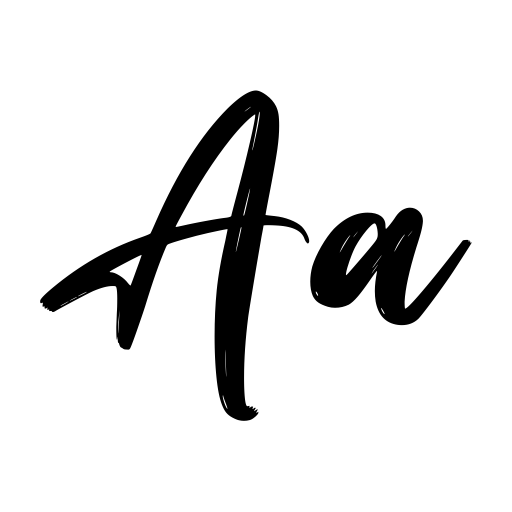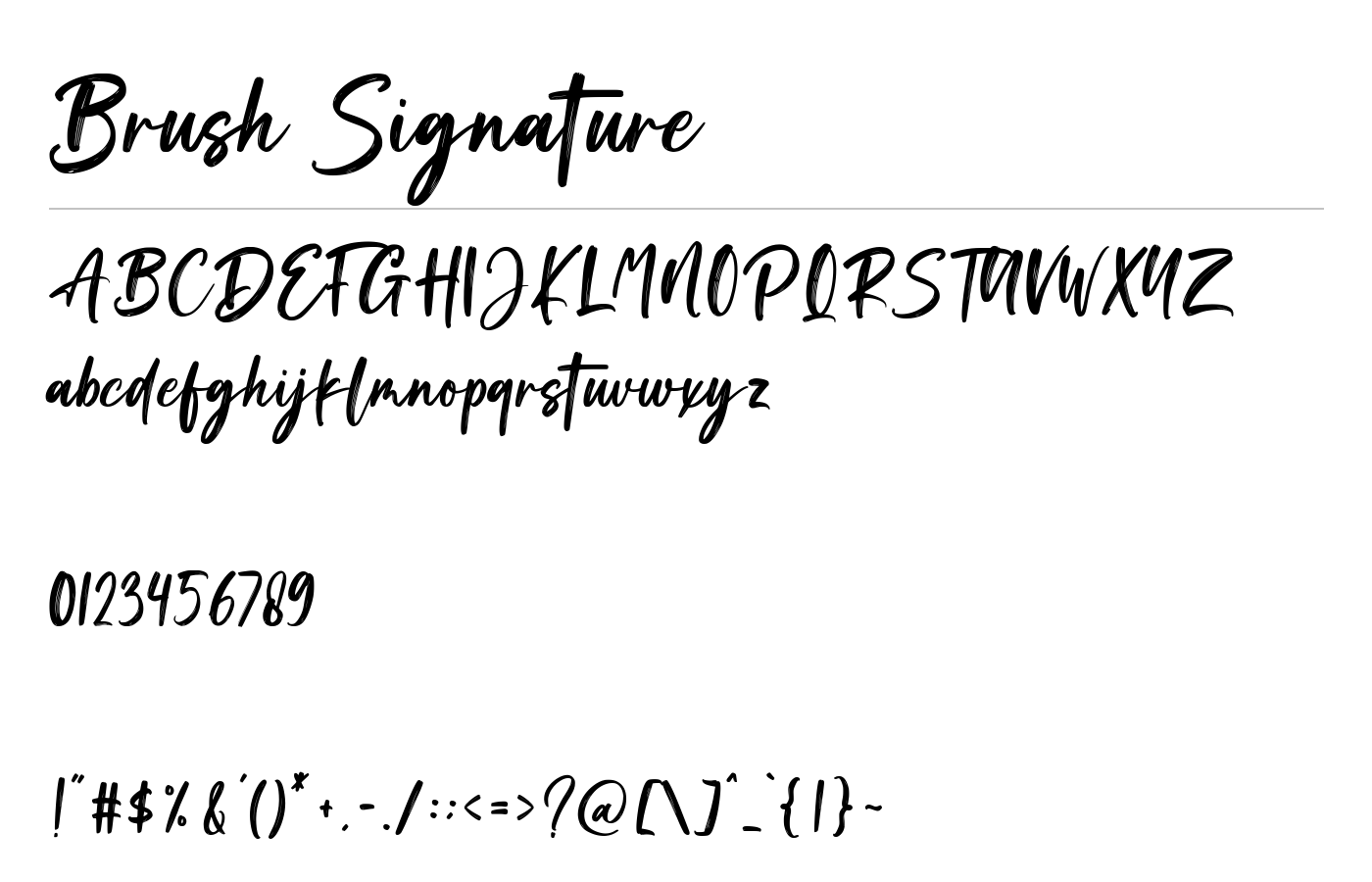
Brush Signature Font is a lively, casual script font that mimics natural brush handwriting with a smooth, flowing style. Its medium weight and varied stroke thickness give it a dynamic, personal feel, making it ideal for branding, invitations, and creative projects where a warm, authentic touch is desired. This font works best in headlines and logos where its expressive character can truly shine.
Brush Signature Font
About Brush Signature Font
| Font family | Brush Signature Font |
| Designer | Muhamad Fikry Nuralif |